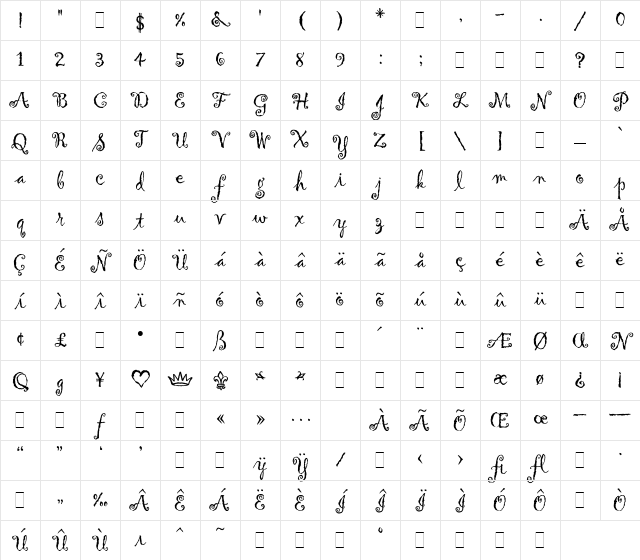
GigiPlain Roman Free Font
GigiPlain Roman
Design Context for GigiPlain
GigiPlain is a composed and adaptable typeface that performs quietly and consistently across a wide range of design contexts.